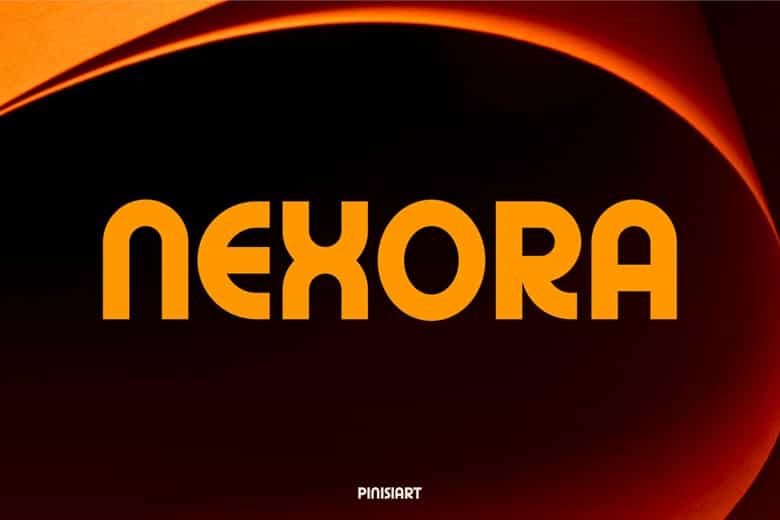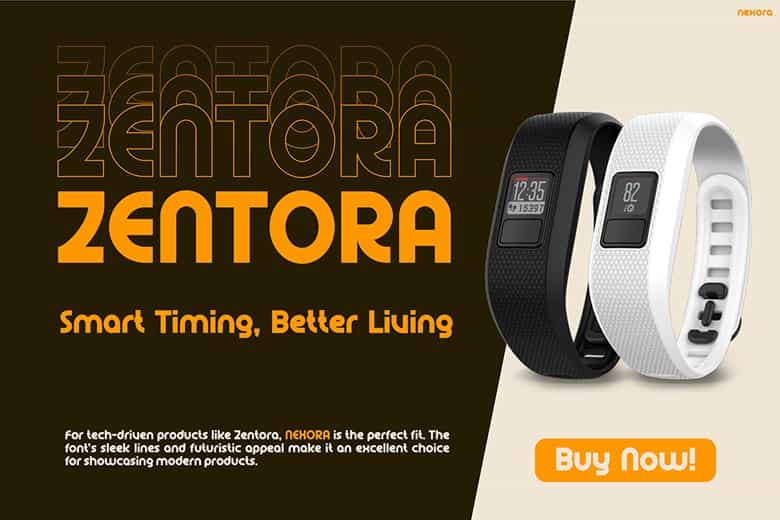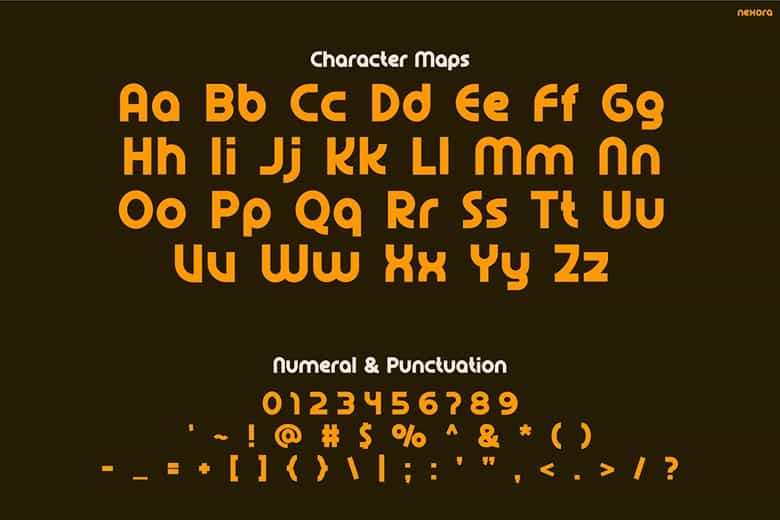
NEXORA is a modern sans-serif font that aims at delivering the futuristic look into various brands and projects. In NEXORA, these features are reflected by technological style where it follows futuristic technology interface and of architectural design. Additionally, rounded corners and straight edge of Font3 provides the quality of modern imagery and sleek design. NEXORA can be good for branding, promotional posters for events, user interface & user experience design, and aesthetic illustrations of the futuristic world.